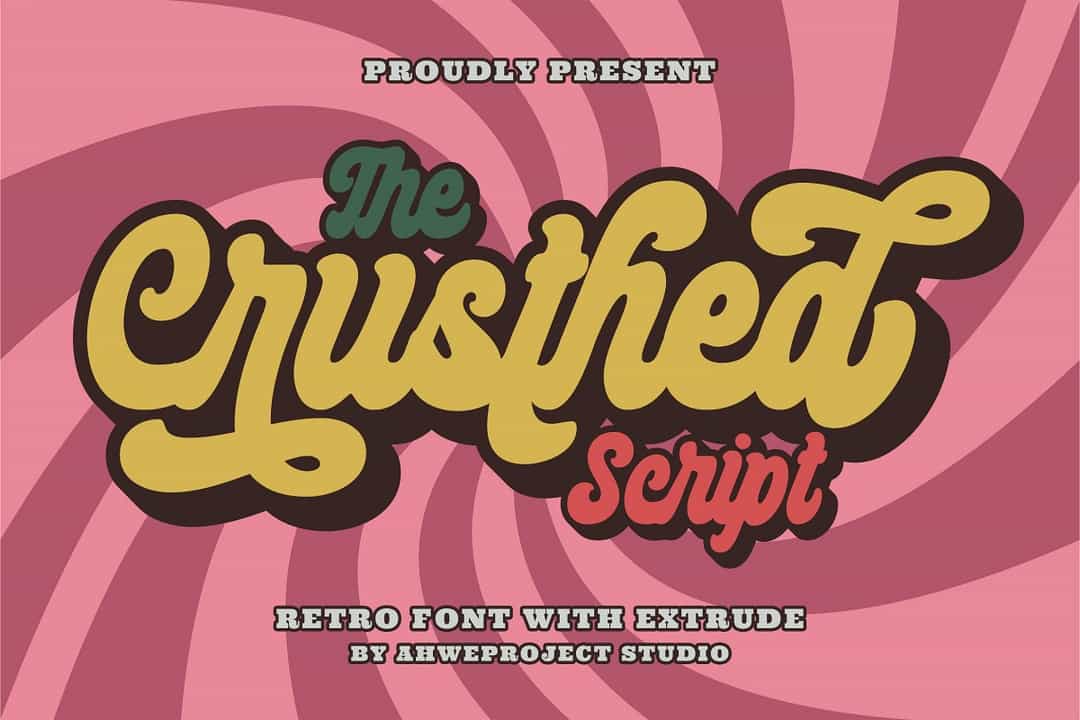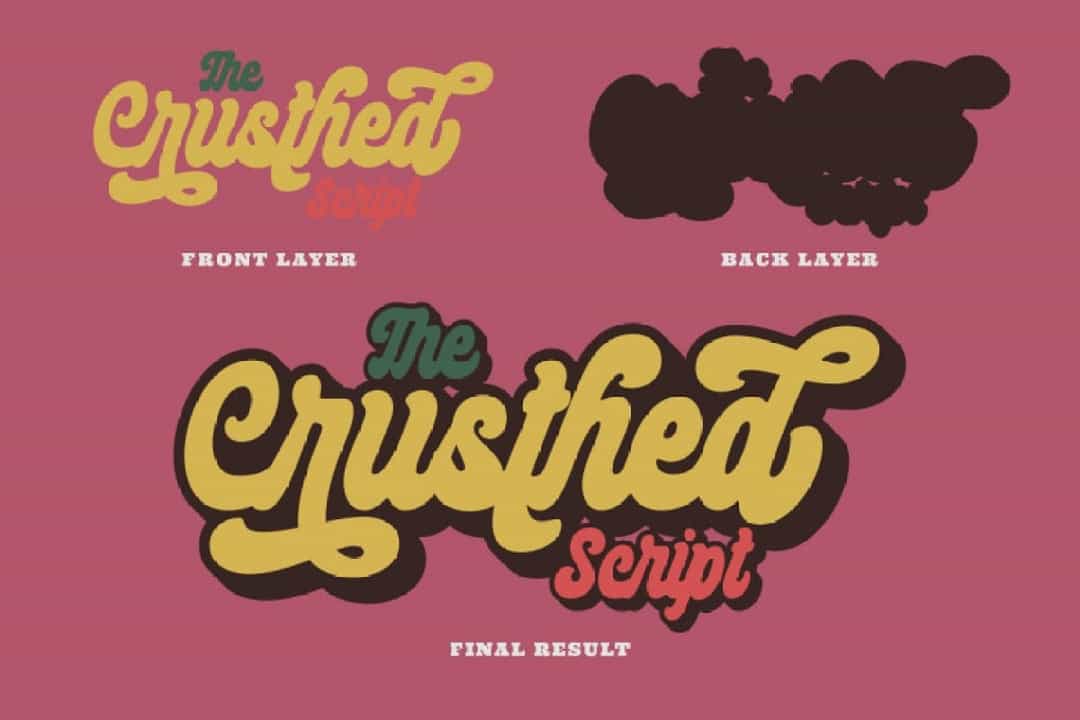
Discover The Crusthed Font, part of the Display Retro Script collection—a versatile and unique font perfect for adding a personal touch to your projects. Download it for free and enjoy crafting designs with style, from invitations to social media posts. This font is available exclusively for personal use, giving you the freedom to create without limits. Unlock your creativity with The Crusthed Font today!
Crusthed can be described as an impressive retro-inspired font to display. Boasting a bold, confident style and adding nostalgia and personality to designs of all kinds. This font makes an unforgettable first impression!